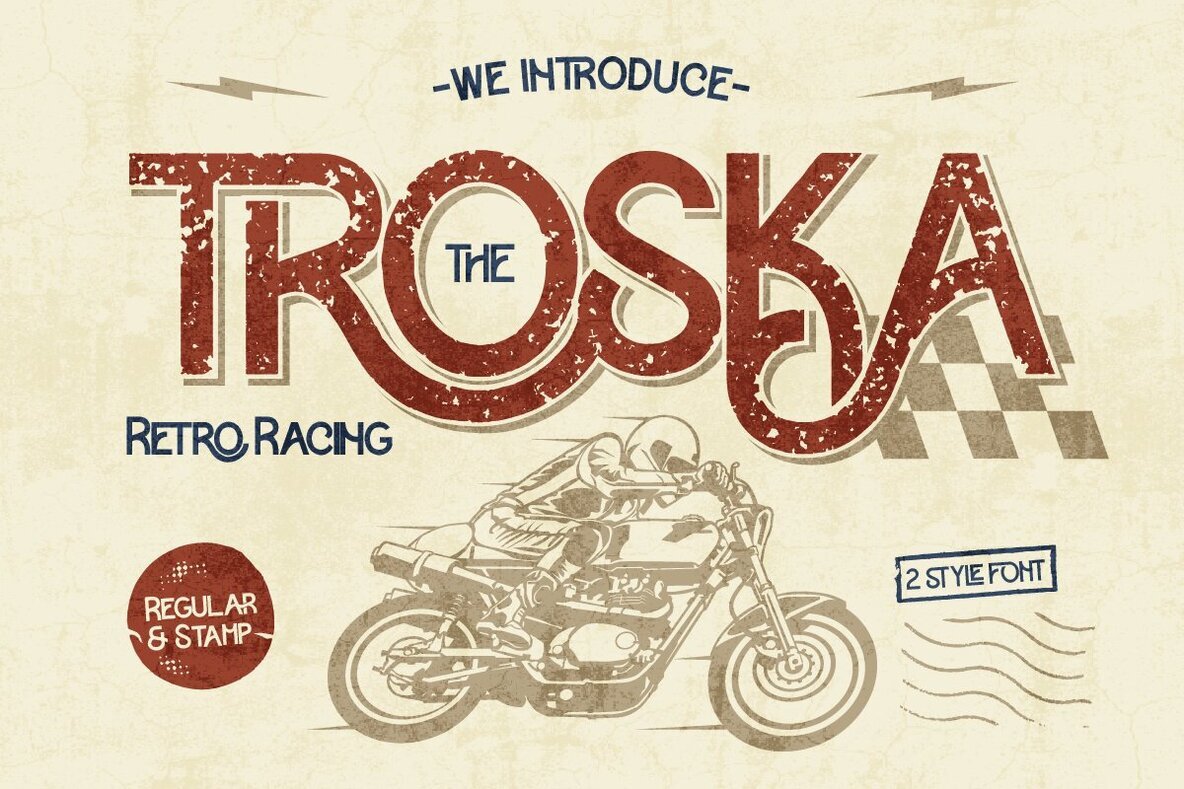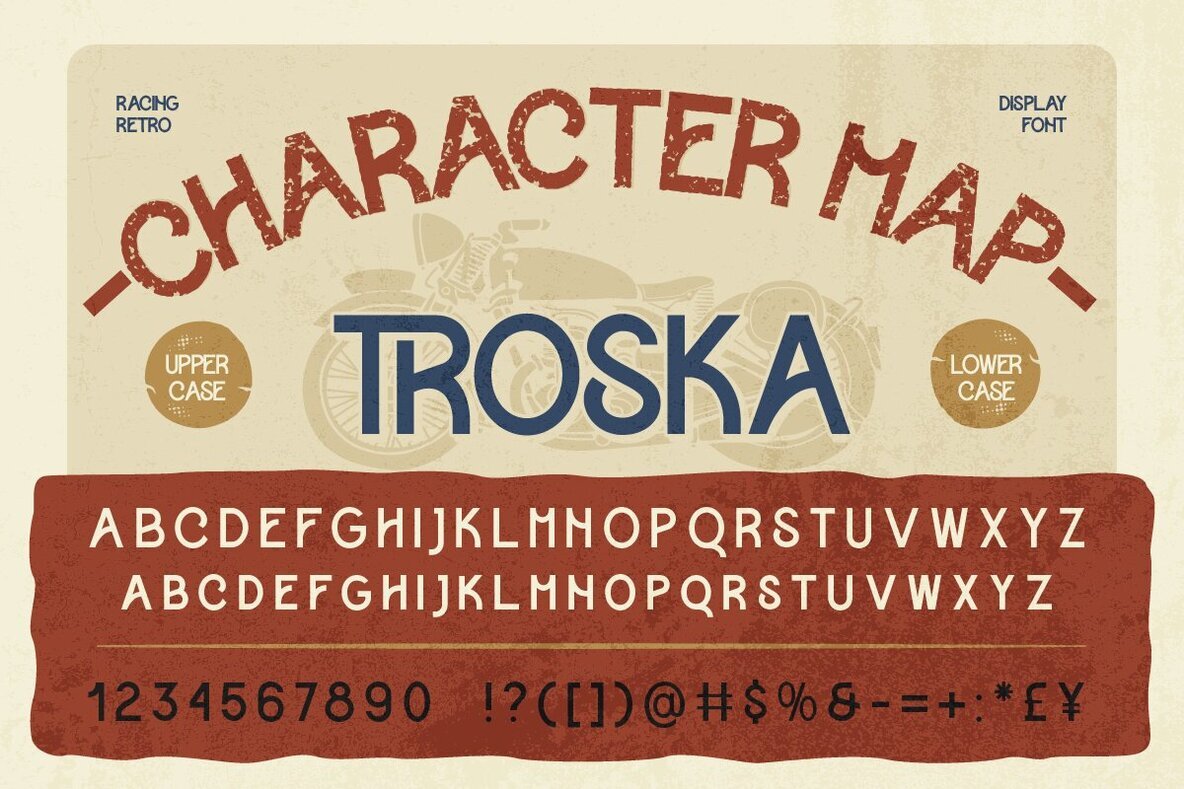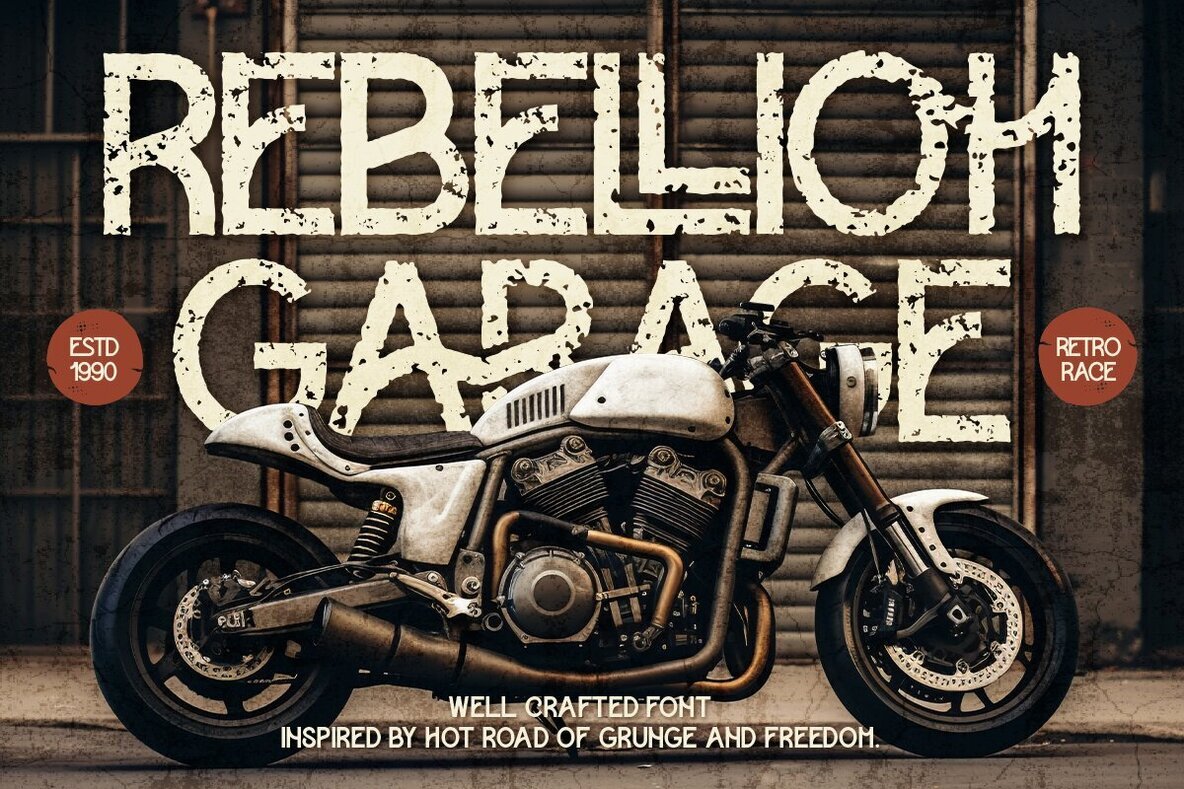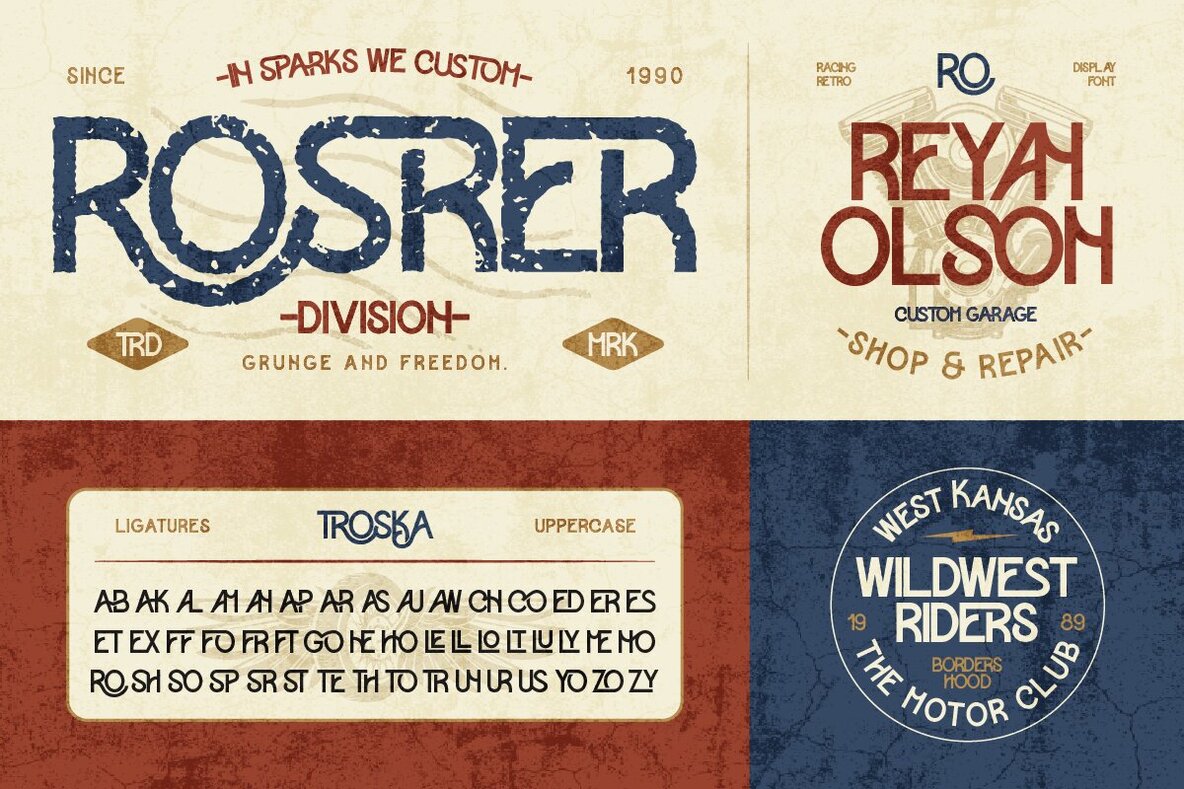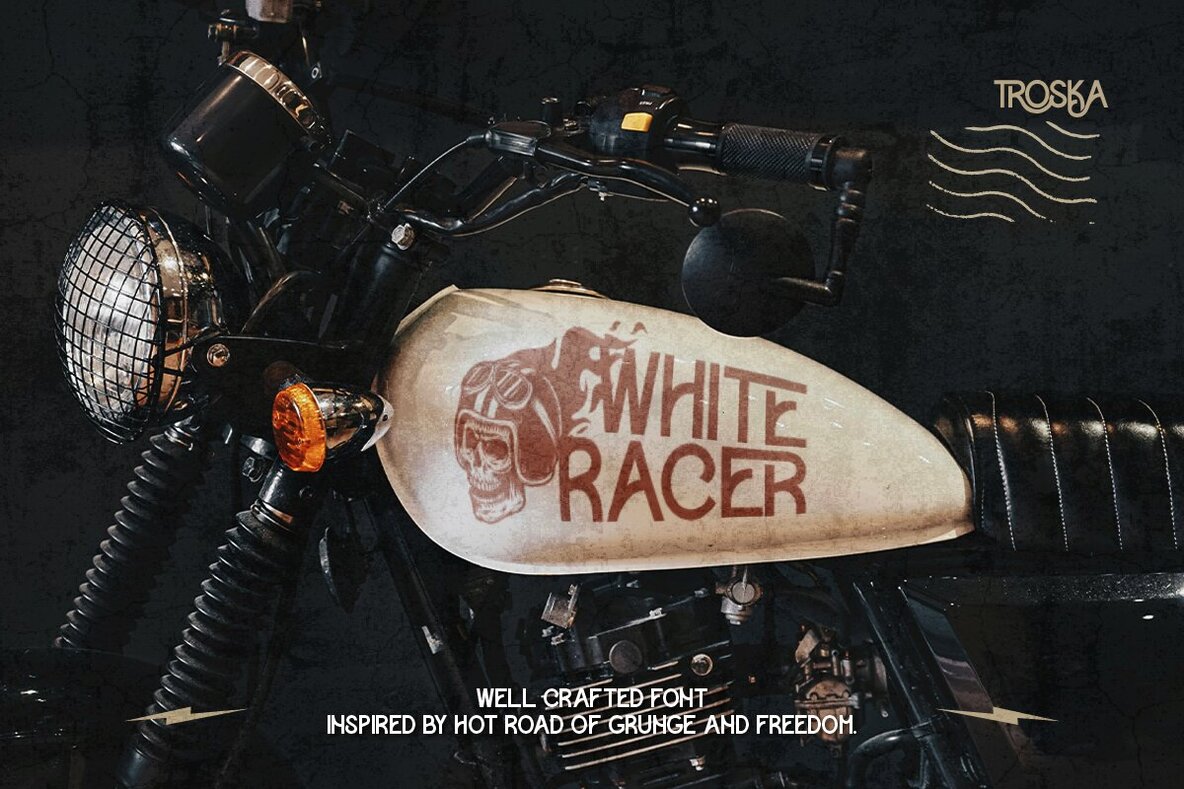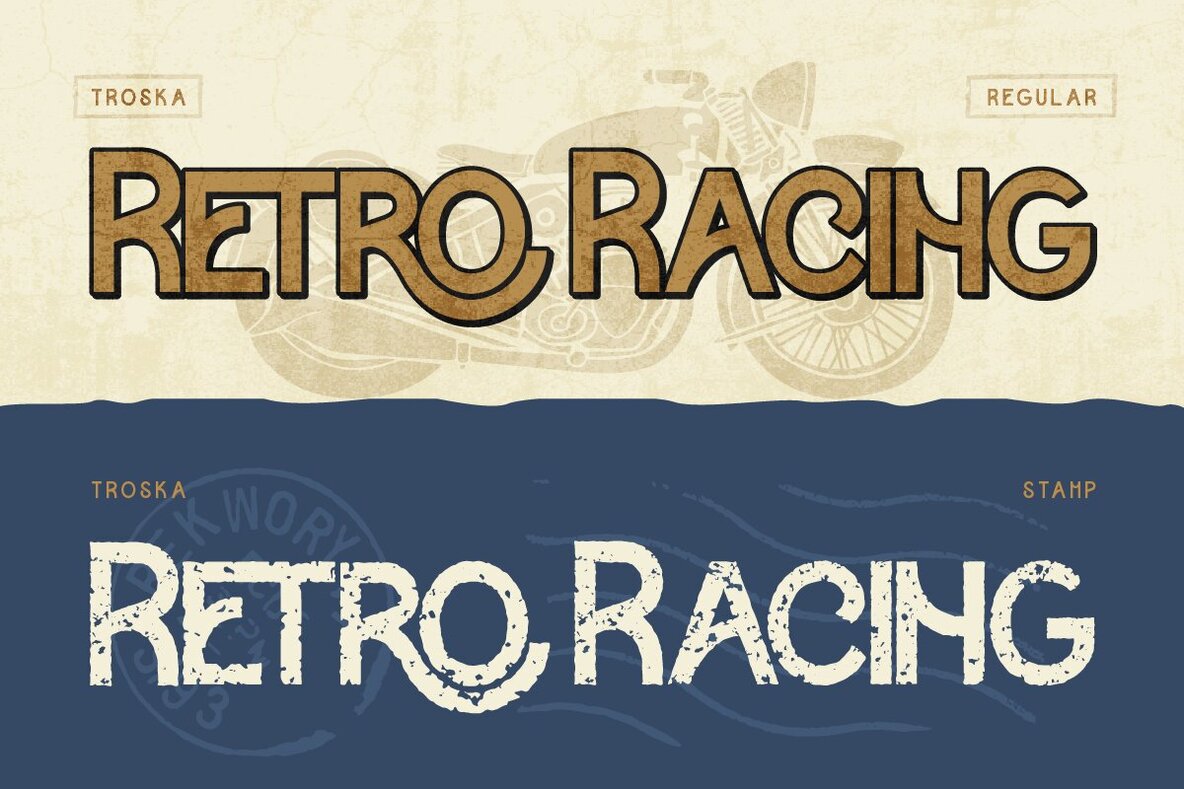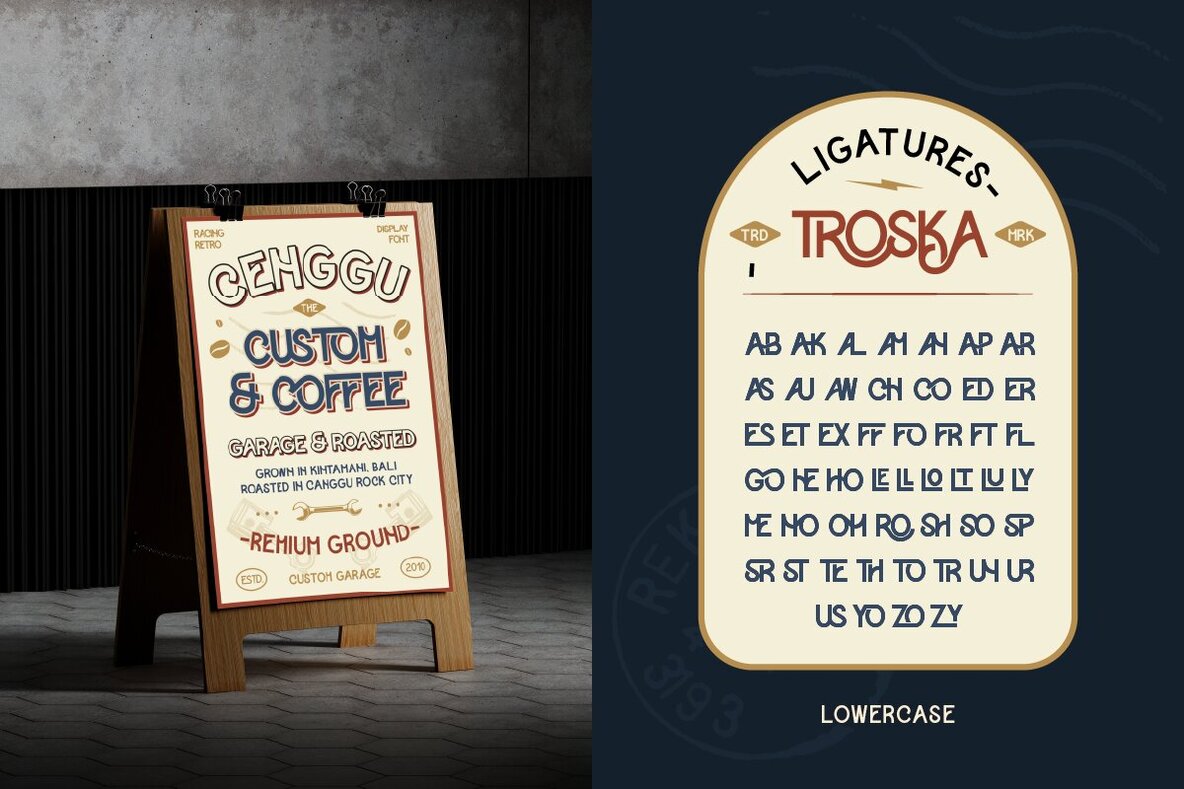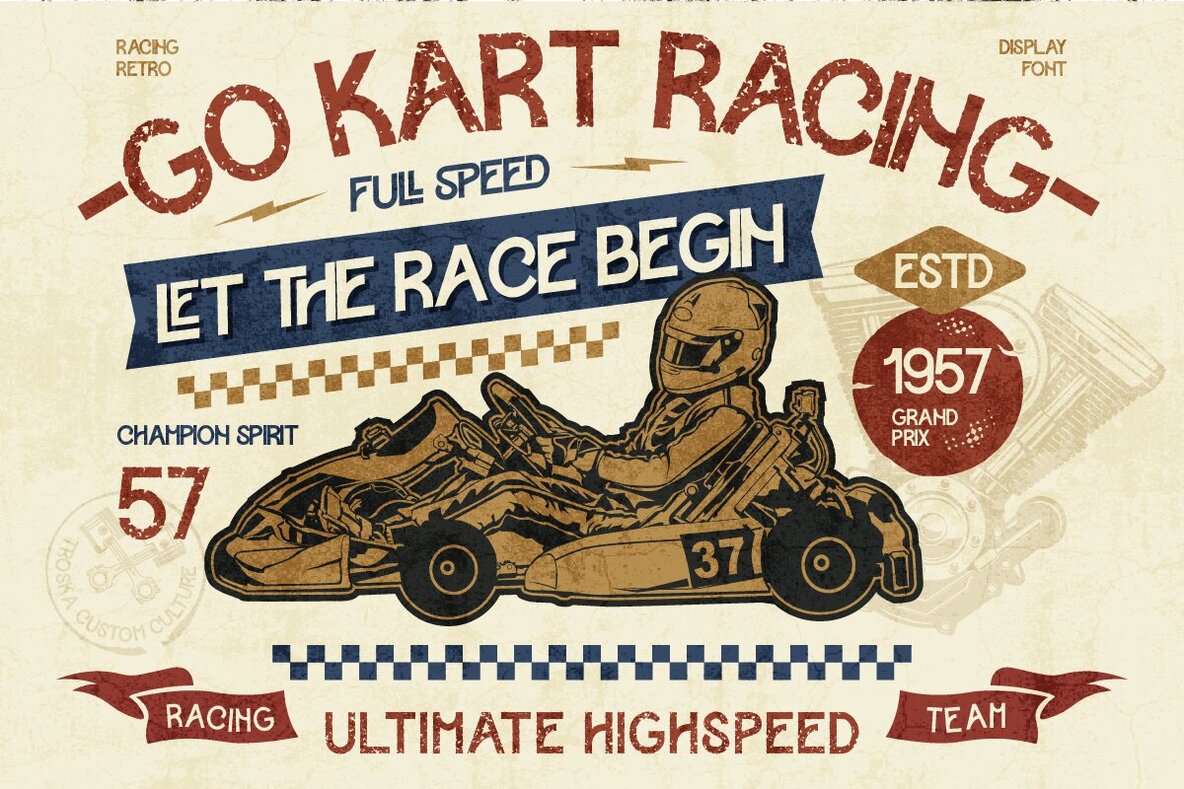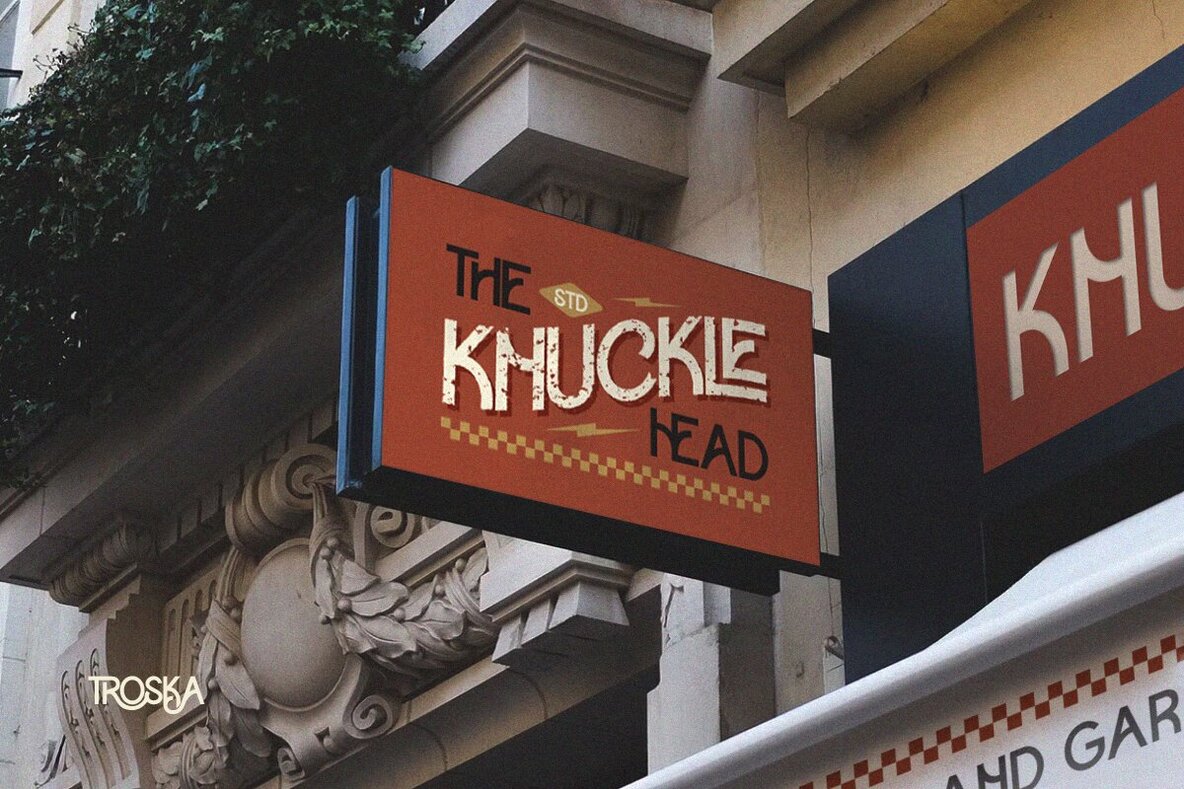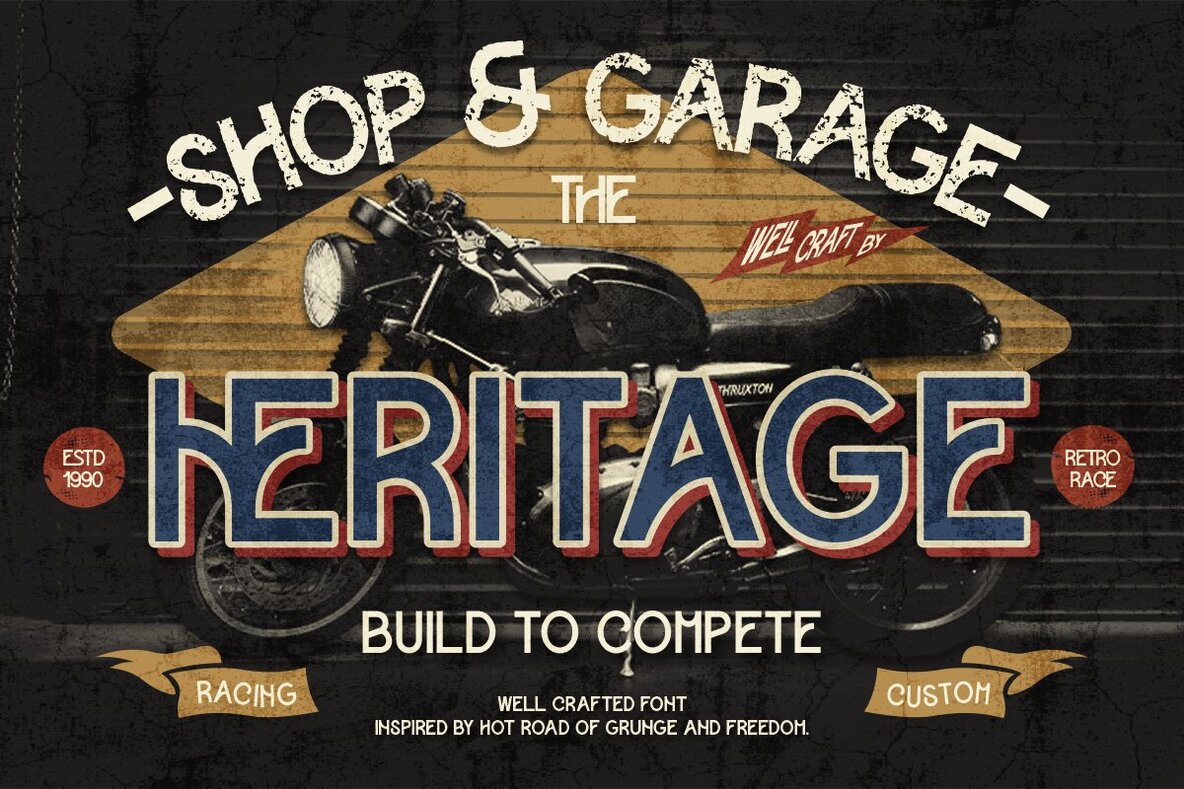
Troska Font
Troska
Troska Stamp
Troska is a retro-inspired racing display font that evokes a sense of nostalgia and adventure. This distinctive typeface comes in two styles: Regular and Stamp, giving your designs a vintage touch. Its bold letterforms guarantee excellent readability, while the inclusion of alternates, ligatures, and multilingual accents ensures versatility across various projects.
Perfectly suited for racing or sport themes, Troska pairs well with vintage branding, automotive and motorcycle themes, as well as streetwear and urban fashion. The font's technical features include an uppercase A-Z set, numbers, punctuation, alternates, ligatures, and multilingual support. With Troska, every design is sure to make an unforgettable impact.